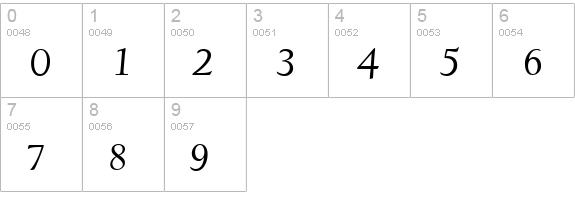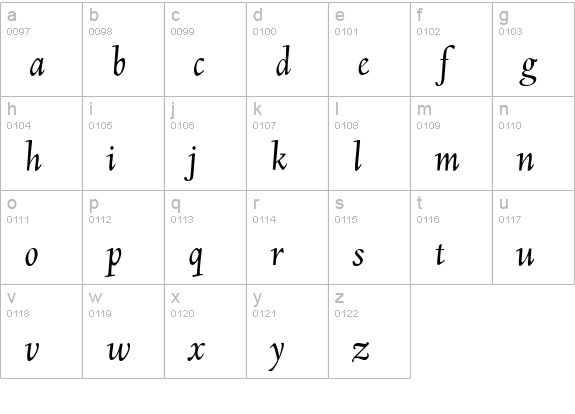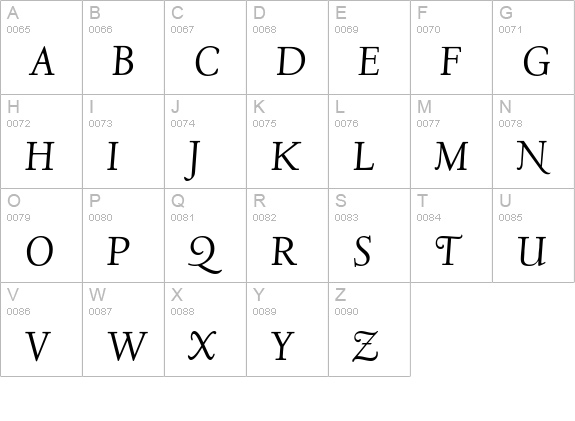
D690-Roman-Italic is a distinctive, italic variant in the D690 typeface family \xE2\x80\x94 well suited to design and typography projects.
D690-Roman-Italic font exudes elegance and sophistication with its sleek and refined Italic style. This font is perfect for adding a touch of timeless charm to any design project, whether it be for invitations, branding, or editorial layouts. With its graceful curves and classic appeal, D690-Roman-Italic brings a sense of grace and sophistication to any text. The best part? D690-Roman-Italic font is completely free to download at FontsMarket.com. This means that you can elevate your designs with this beautiful font without any cost. Don't miss out on this opportunity to enhance your projects with the exquisite D690-Roman-Italic font, available for free and ready to elevate your designs to new heights.